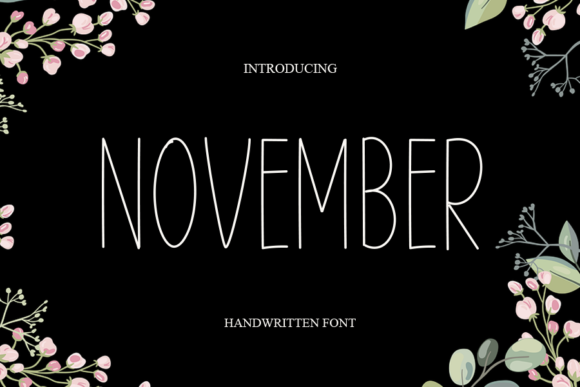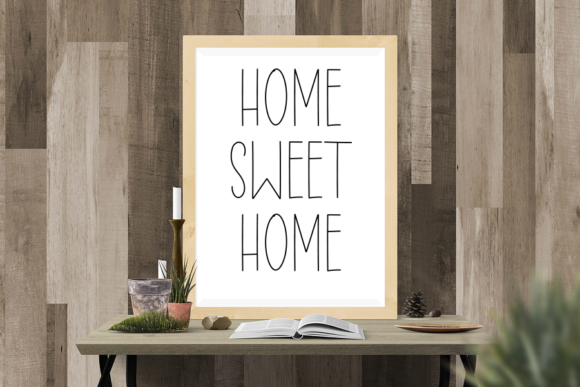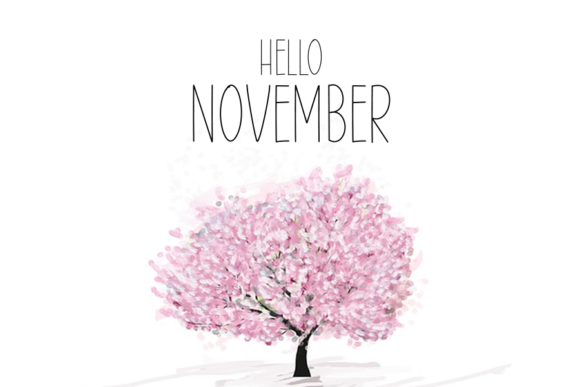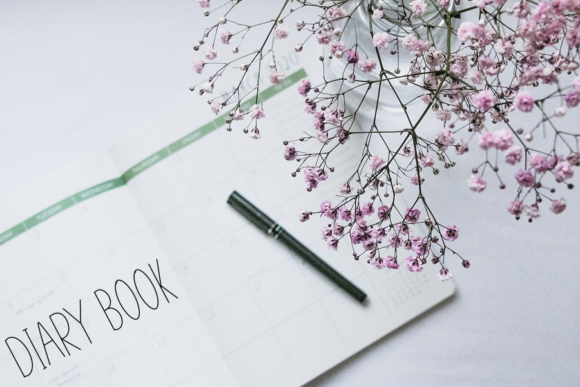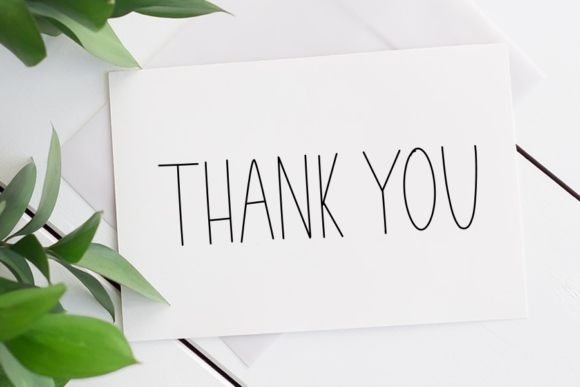
November Font
November is a thin lettered, simple and adaptable handwritten font. It can easily be matched to an incredibly large set of projects, so add it to your creative ideas and notice how it makes them stand out!